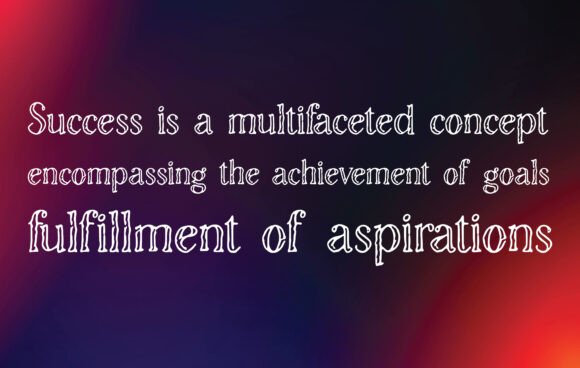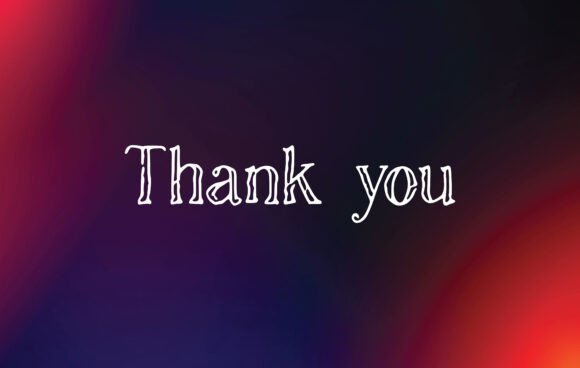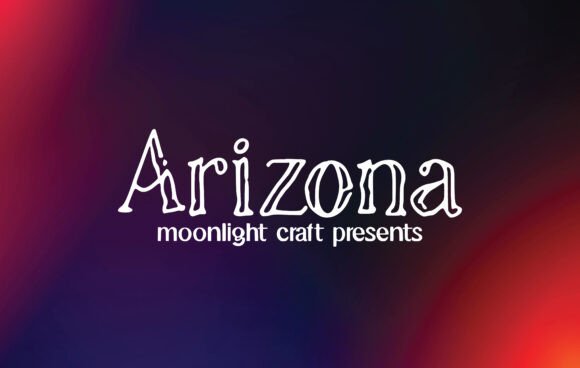
Arizona Font: Elevate Your Creative Projects with this Lovely Handwritten Font
Are you a designer, crafty person, or someone who loves to express themselves through creative projects? Look no further! Introducing the Arizona Font, a beautiful handwritten font that has the potential to take your ideas to the highest level. In this article, we’ll dive into the world of Arizona Font, exploring its features, benefits, and uses, and why it’s the perfect choice for creating eye-catching logos, branding, and quotes.
What is Arizona Font?
Arizona Font is a stunning handwritten font that exudes elegance, sophistication, and playfulness. Its unique and distinctive style makes it perfect for a wide range of creative projects, from logos and branding to quotes, posters, and more. This font is designed to add a personal touch to your work, making it stand out from the crowd and leave a lasting impression on your audience.
Features of Arizona Font
So, what makes Arizona Font so special? Here are some of its key features:
• Handwritten style: Arizona Font is a carefully crafted handwritten font that mimics the natural flow of handwriting, giving it a warm and personal feel.
• Unique and distinctive: This font has a one-of-a-kind style that sets it apart from other fonts, making it perfect for creating memorable logos and branding.
• Versatile: Arizona Font is suitable for a wide range of creative projects, from digital designs to print materials.
• Elegant and sophisticated: This font exudes elegance and sophistication, making it perfect for high-end branding and designs.
Benefits of Using Arizona Font
So, why should you choose Arizona Font for your creative projects? Here are some benefits of using this amazing font:
• Stand out from the crowd: Arizona Font is a unique and distinctive font that will help your designs stand out from the crowd and leave a lasting impression on your audience.
• Add a personal touch: This font adds a personal touch to your designs, making them more relatable and engaging.
• Perfect for branding: Arizona Font is ideal for creating eye-catching logos and branding that will help you establish a strong brand identity.
Uses of Arizona Font
Arizona Font is a versatile font that can be used for a wide range of creative projects, including:
• Logos and branding: Create eye-catching logos and branding that will help you establish a strong brand identity.
• Quotes and posters: Use Arizona Font to create stunning quotes and posters that will grab attention and inspire your audience.
• Digital designs: This font is perfect for digital designs, including social media graphics, blog posts, and more.
• Print materials: Arizona Font is also suitable for print materials, such as brochures, flyers, and business cards.
In conclusion, Arizona Font is a beautiful handwritten font that has the potential to take your creative ideas to the highest level. Its unique and distinctive style makes it perfect for creating eye-catching logos, branding, and quotes. With its ease of use, versatility, and range of benefits, Arizona Font is a must-have for designers, crafters, and anyone who loves to express themselves through creative projects. So why wait? Get your hands on Arizona Font today and start elevating your designs to new heights!